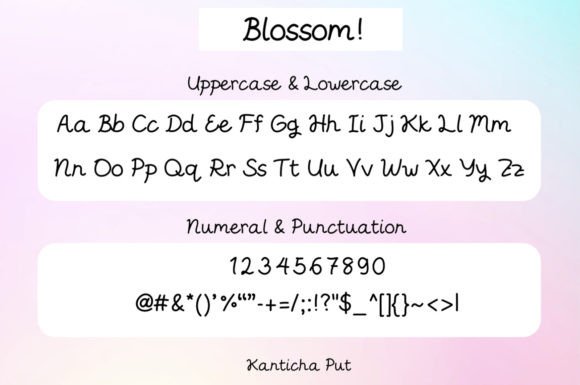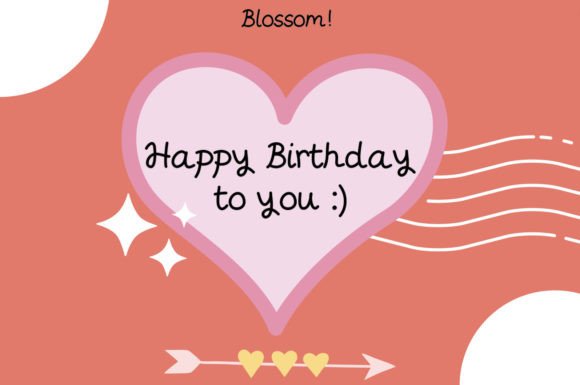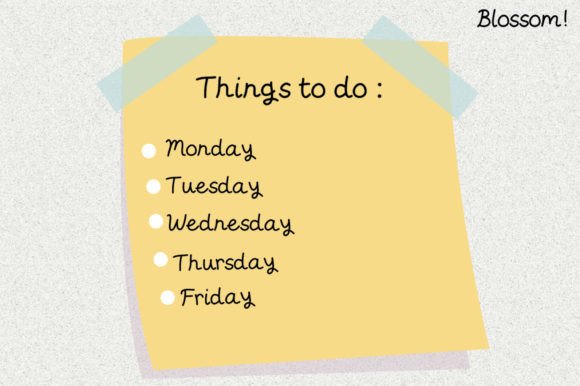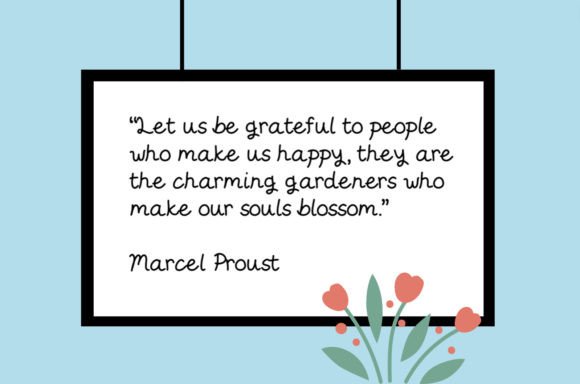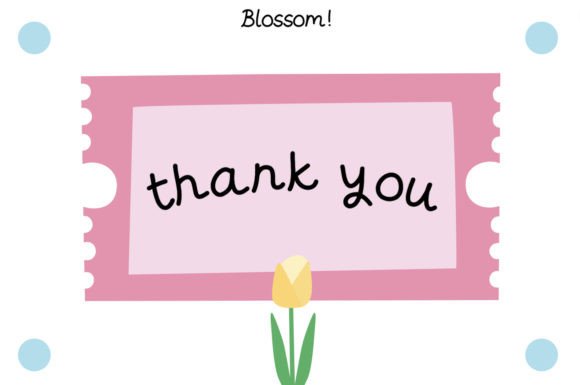
Introducing Blossom Font: The Cute and Lovely Handwritten Font for Your Favorite Projects
Are you tired of using the same old fonts for your design projects? Do you want to add a touch of sweetness and elegance to your creations? Look no further than Blossom Font, a beautiful handwritten font that’s perfect for designers, crafters, and anyone looking to add a personal touch to their work.
What is Blossom Font?
Blossom Font is a delightful handwritten font that’s designed to bring a smile to your face. With its cute and lovely letterforms, this typeface is sure to brighten up any design you’re working on. Whether you’re creating a logo, a poster, a social media graphic, or a craft project, Blossom Font is the perfect choice.
Features of Blossom Font
So, what makes Blossom Font so special? Here are just a few of its features:
- Cute and Lovely Design: Blossom Font is designed to be adorable and charming, making it perfect for projects that require a touch of whimsy and playfulness.
- Handwritten Style: This font is carefully crafted to mimic the look and feel of handwritten text, giving your designs a personal and human touch.
- Easy to Read: Despite its playful design, Blossom Font is easy to read and understand, making it perfect for body text and headings.
- Versatile: Blossom Font can be used for a wide range of projects, from digital designs to print materials, and from crafts to commercial projects.
Why Use Blossom Font?
So, why should you choose Blossom Font for your next project? Here are just a few reasons:
- Add a Personal Touch: With Blossom Font, you can add a personal touch to your designs and make them stand out from the crowd.
- Create a Unique Brand Identity: If you’re a business owner or entrepreneur, Blossom Font can help you create a unique brand identity that’s sweet, elegant, and memorable.
- Perfect for Crafters: If you’re a crafter or maker, Blossom Font is perfect for adding a touch of personality to your projects, from handmade cards to DIY decorations.
Here are a few tips and tricks to help you get the most out of Blossom Font:
- Pair it with Other Fonts: Experiment with pairing Blossom Font with other fonts to create a unique and interesting contrast.
- Use it for Headings and Titles: Blossom Font is perfect for headings and titles, so use it to add a touch of elegance and sophistication to your designs.
- Add a Pop of Color: Use Blossom Font with a bold or bright color to add a pop of color to your designs.
In conclusion, Blossom Font is a beautiful handwritten font that’s perfect for designers, crafters, and anyone looking to add a touch of sweetness and elegance to their work. With its cute and lovely design, easy readability, and versatility, Blossom Font is sure to brighten up any design project. So why not give it a try and see the difference it can make?